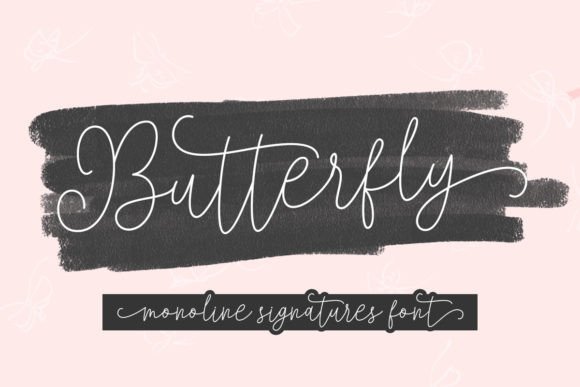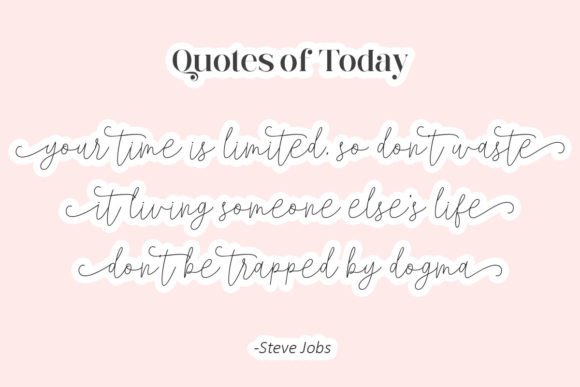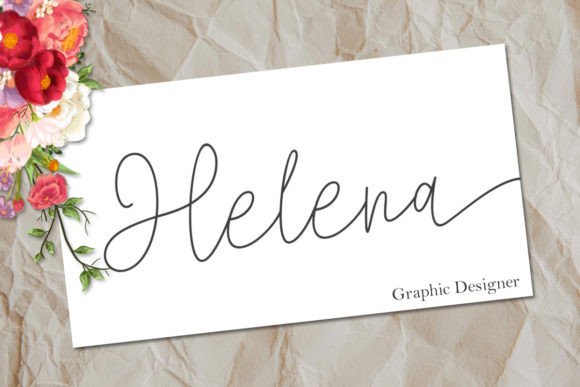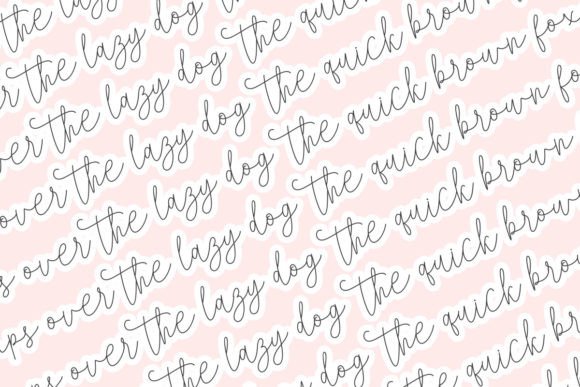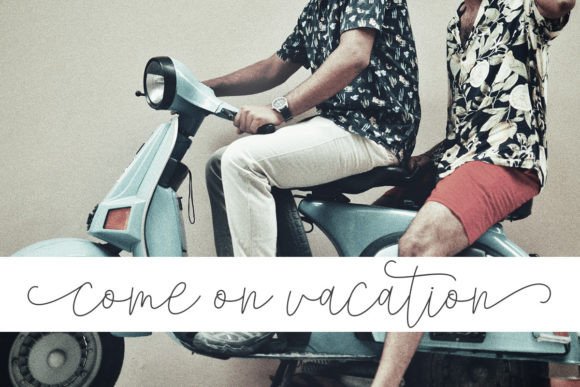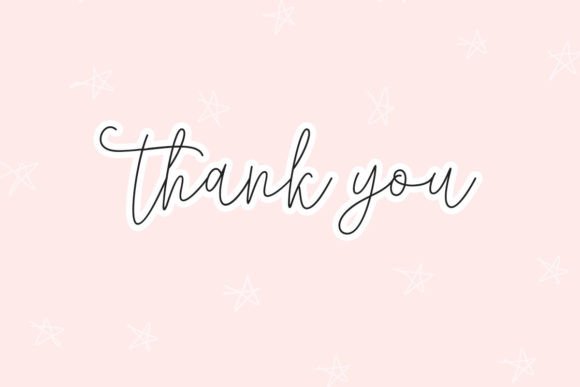
Butterfly is a graceful monoline signature font that captures the charm of handwritten simplicity. Designed with a farmhouse aesthetic in mind, the Butterfly font download offers a smooth, flowing script that’s both modern and rustic—making it the ideal choice for a wide range of creative projects.
This versatile typeface blends a personal touch with elegant lines, perfect for designs that need a soft and friendly vibe. Whether you’re crafting for yourself or designing for a client, Butterfly adds warmth and character to every letter.
Perfect for DIY & Farmhouse Design
From cozy home décor to custom apparel, the Butterfly font adapts beautifully to various crafting needs:
• SVG & Cricut Projects – Ideal for cutting machines
• Shirts & Mugs – Add a handwritten charm to your merchandise
• Farmhouse Decor – Pillows, signs, labels, and more
• Branding & Blogs – Build a soft, approachable brand identity
• Logos & Invitations – Perfect for elegant rustic wedding invites
• Greeting Cards – Personal and heartwarming
• Crafts & Stationery – Handwritten appeal for every creation
The font maintains readability while bringing a whimsical and gentle flair to your designs.
• Monoline Signature Style – Smooth and consistent line width
• Handwritten Feel – Adds personality and charm
• Full Character Set – Includes uppercase, lowercase, punctuation, and numbers
Whether you’re a small business owner or a DIY enthusiast, this font is intuitive and rewarding to work with.
Why Choose the Butterfly Font?
If your design needs a calm, farmhouse vibe or a personal handwritten style, the Butterfly font download is your go-to choice. Its timeless look makes it suitable for rustic-themed branding, holiday crafts, seasonal products, and handmade items. Add this font to your collection and instantly elevate your projects with authentic, handwritten charm.